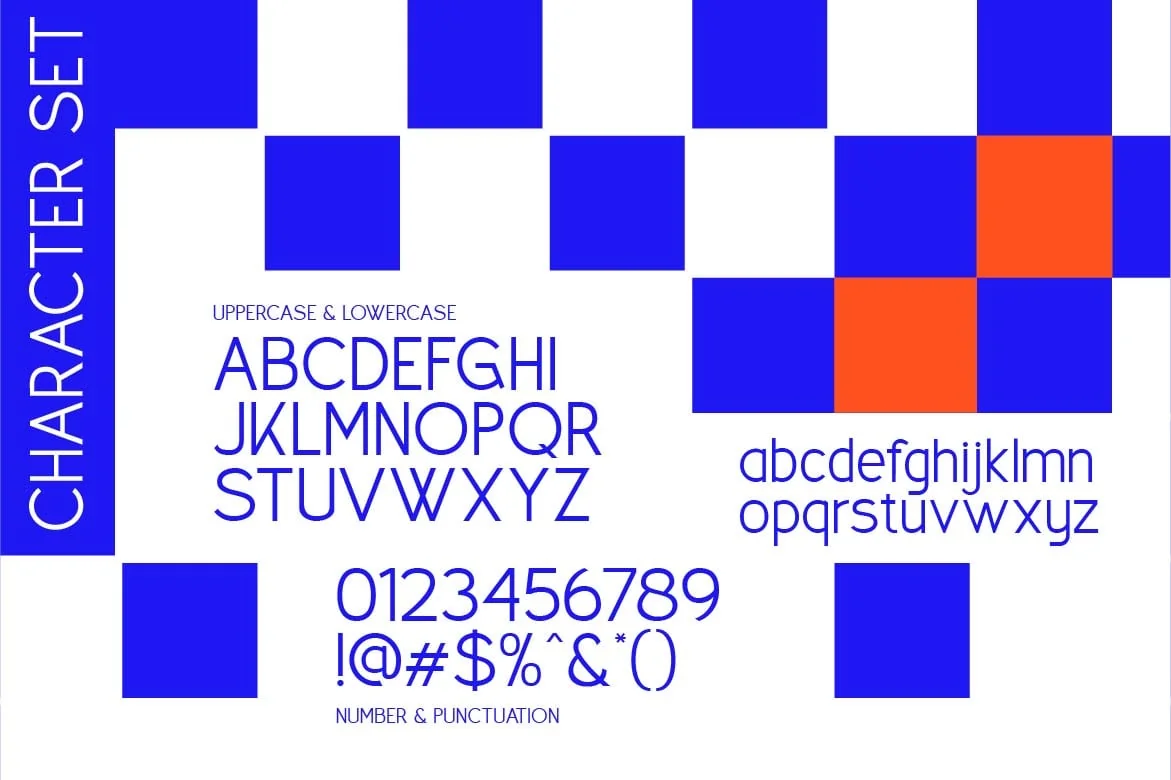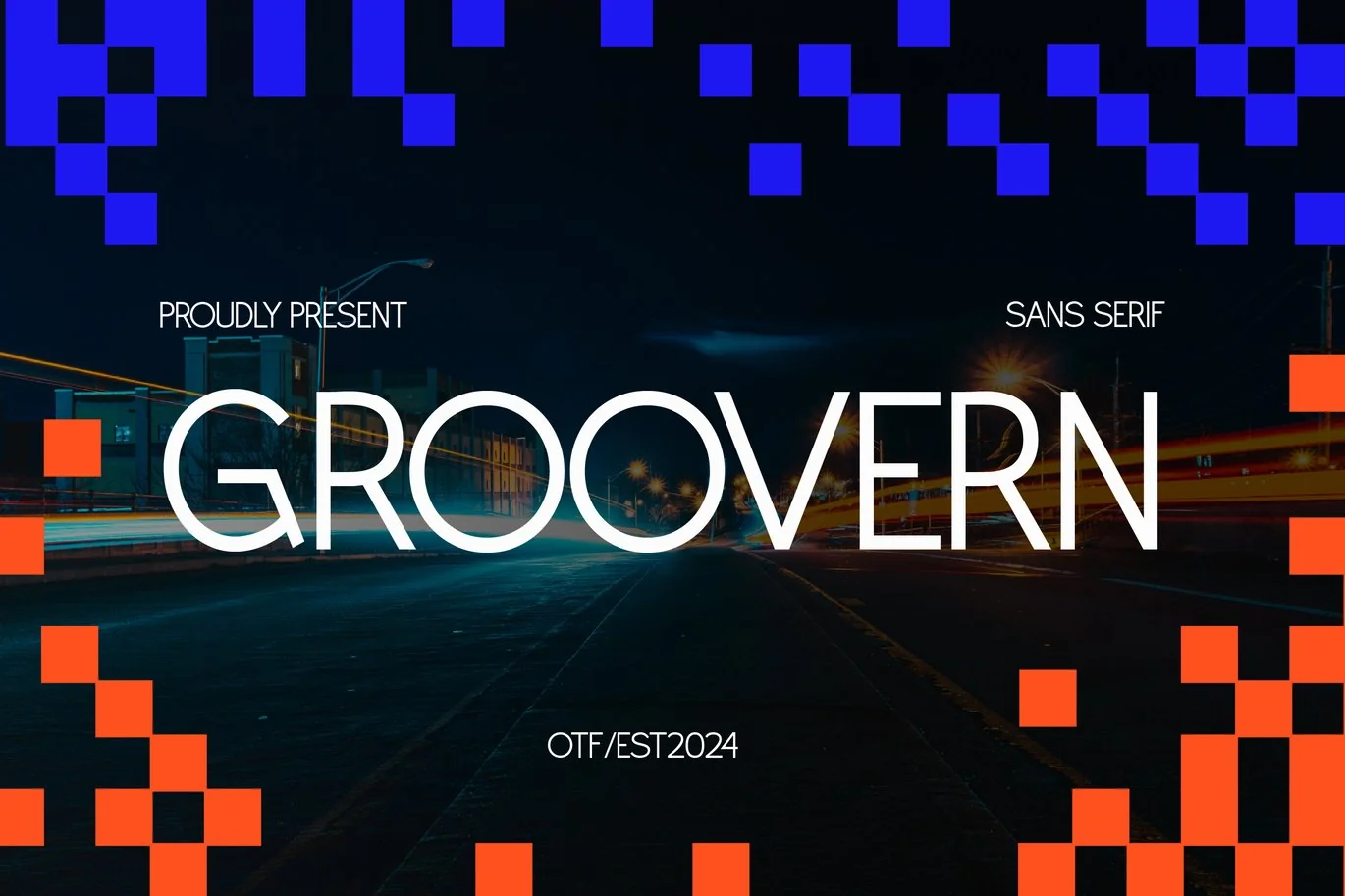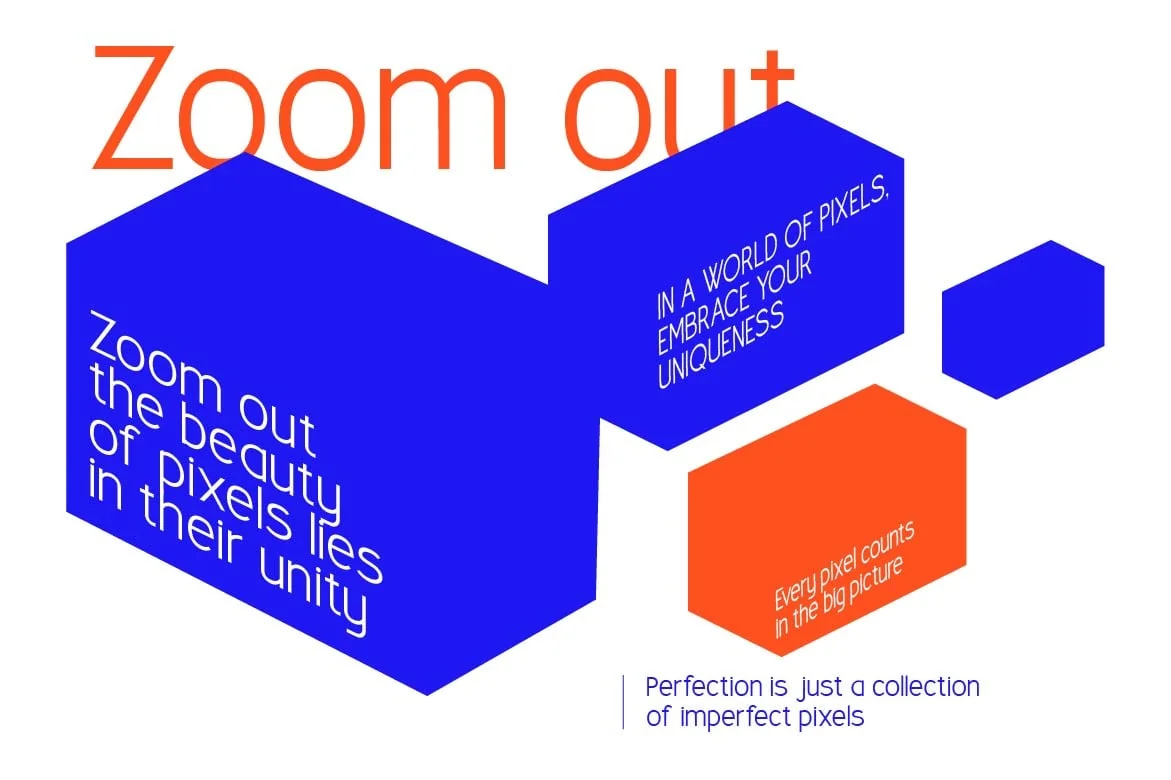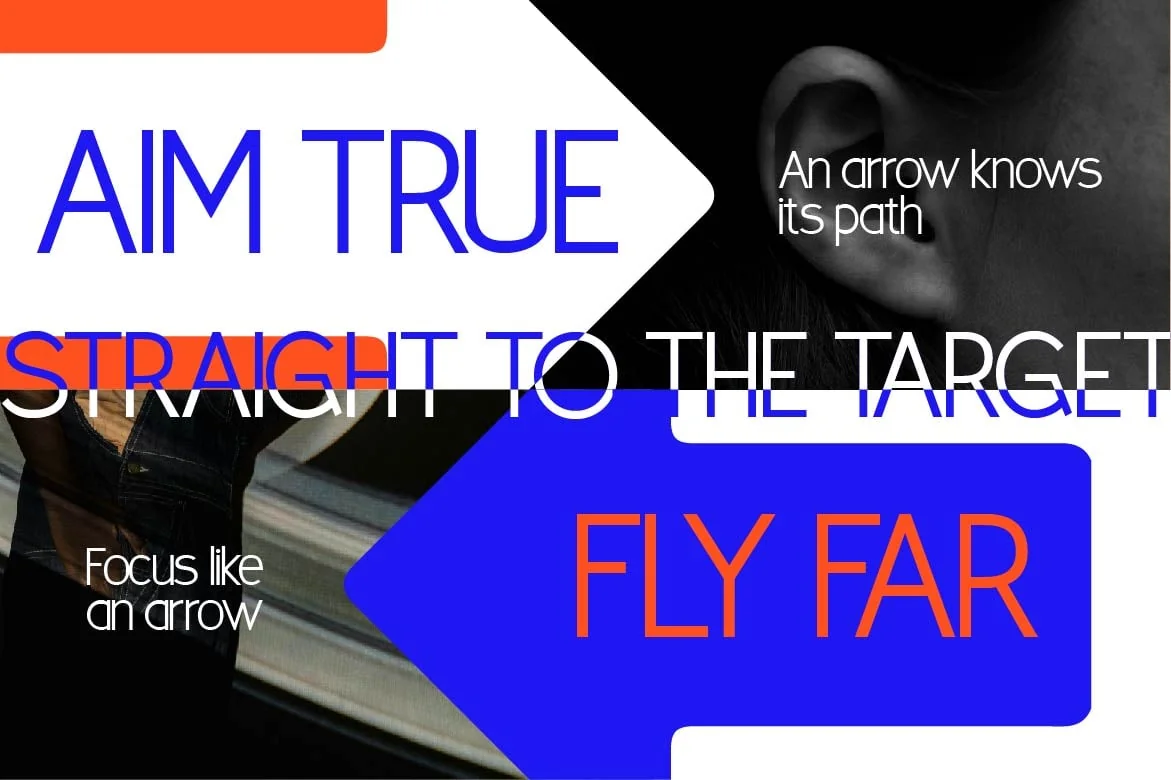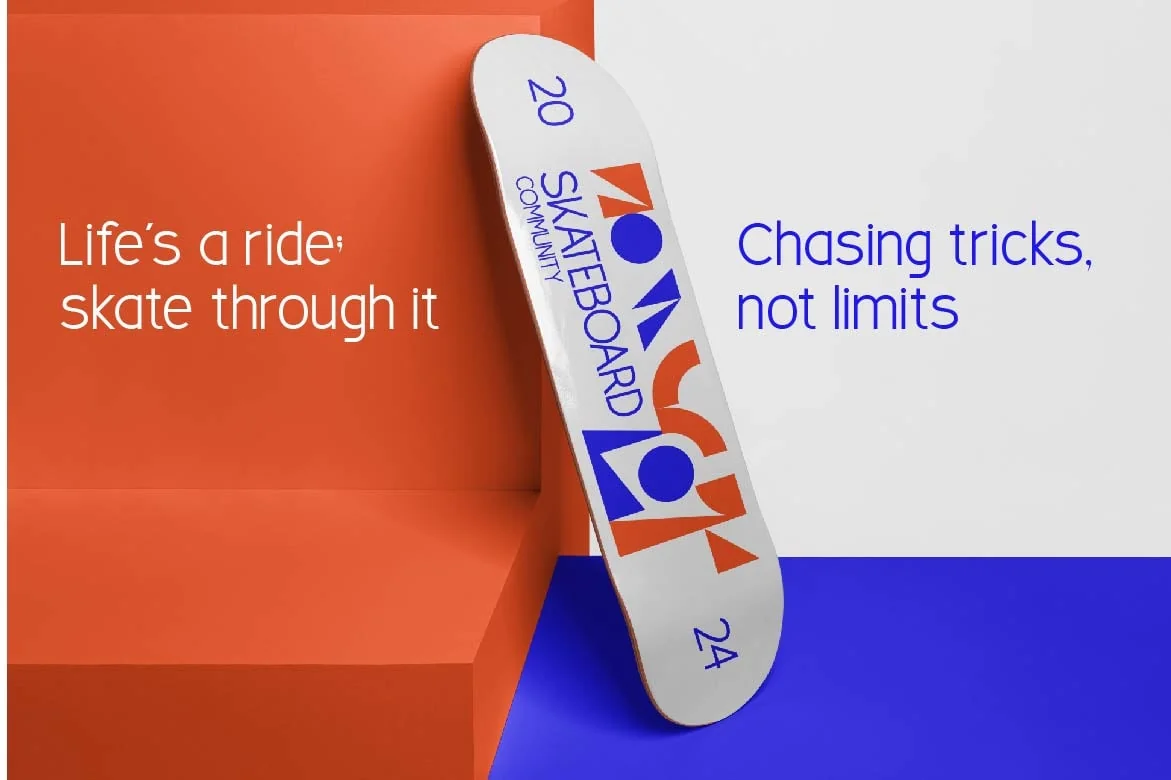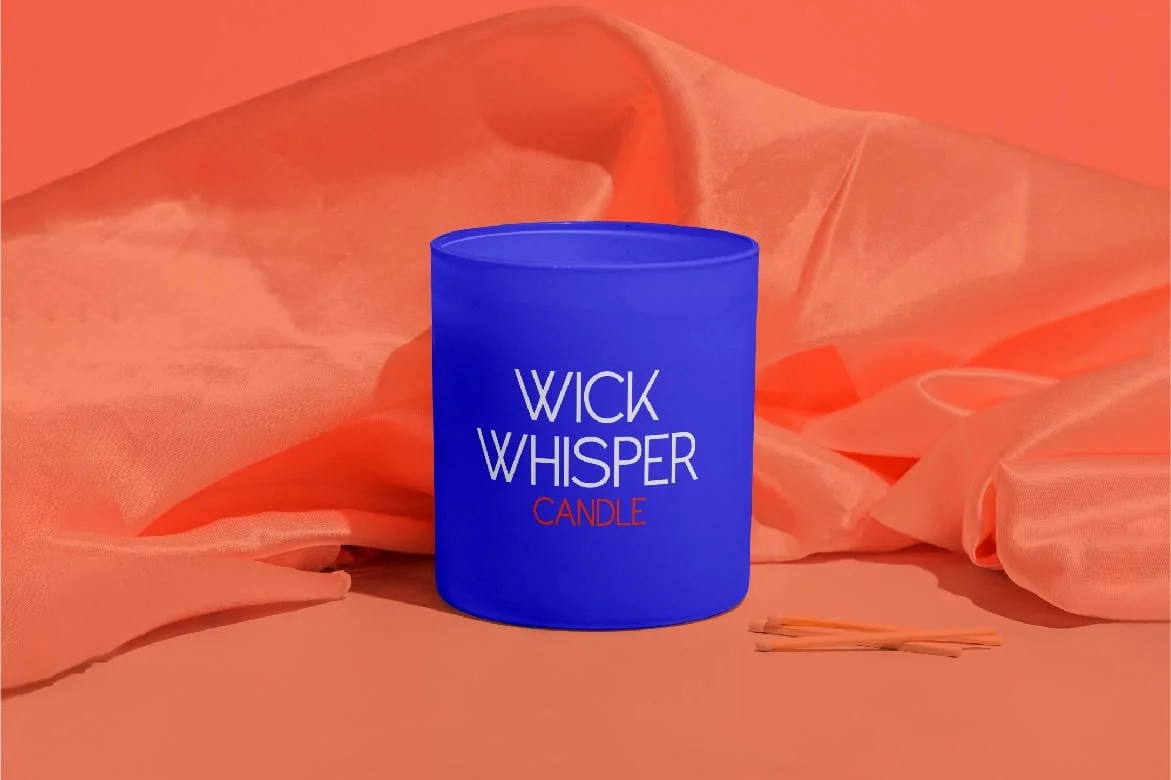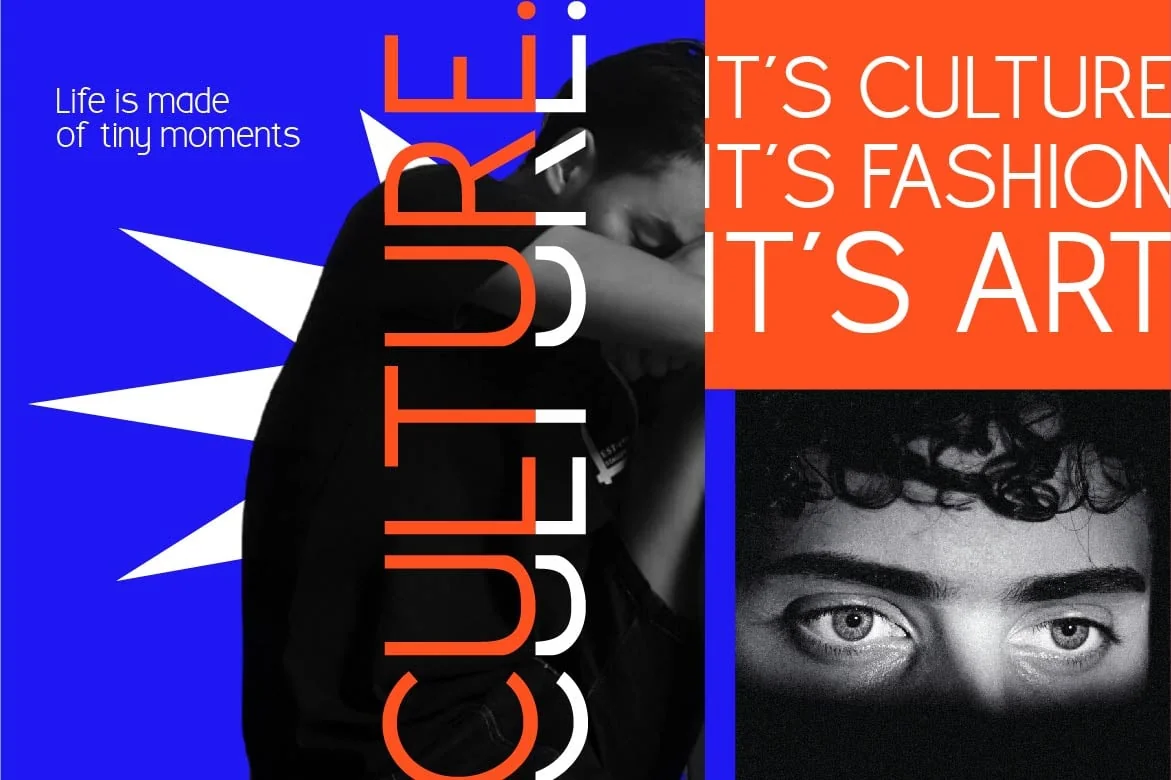
Groovern Sans Serif Font
Elevate your designs with Groovern Sans Serif Font, a modern script font perfect for adding elegance and style to your projects. Whether it’s for quotes, logotypes, magazine headers, or more, this versatile typeface ensures your text stands out beautifully.
Main Features
- Uppercase & Lowercase characters
- Numeral & Punctuations